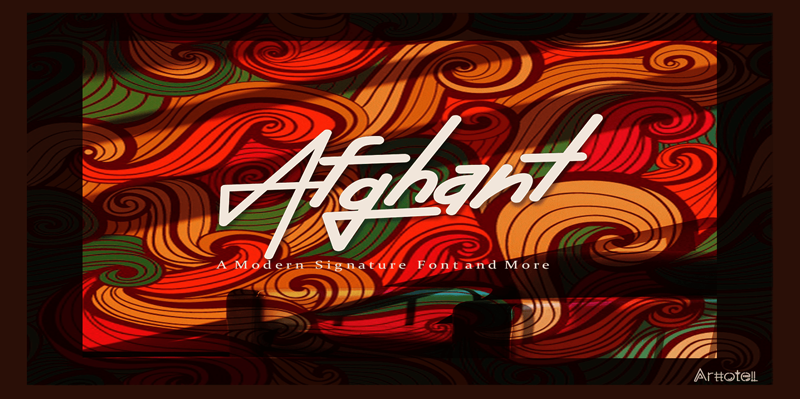
Font name: | Afghant |
Author: | arttotell |
Afghant is a strong and bold display font, perfect for turning any design project into a true standout! Thanks for checking out my store, and feel free to get in touch if you have any questions! arttotell@gmail.com www.creativefabrica.com/product/afghant/ref/235579/ Want to collaborate on branding design please follow me on Behance & Instagram to stay up to date for my latest job, and let's be friends - THANK YOU � |